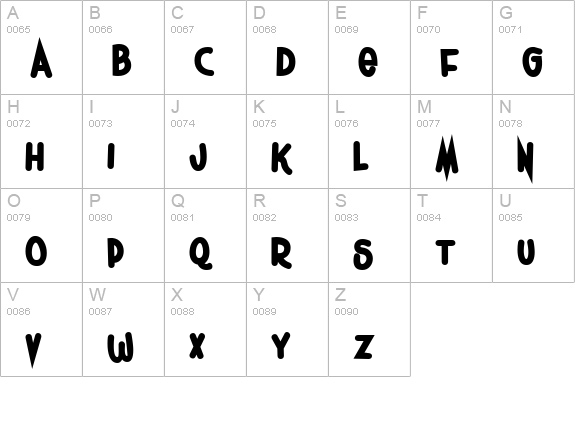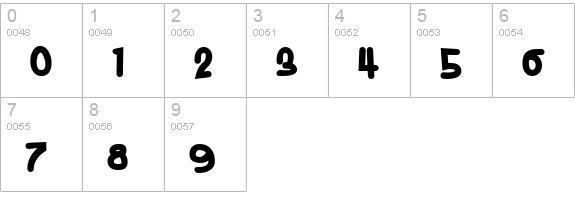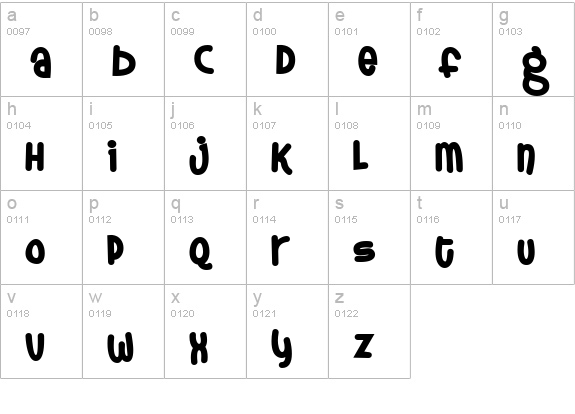
Thursdoo Font Details
Thursdoo font is a stunning display font that exudes elegance and sophistication. With its clean lines and modern design, this font is perfect for a wide range of creative projects, from branding and logos to invitations and social media graphics. Thursdoo font captivates with its timeless beauty, making a lasting impression on any design. What's even better is that Thursdoo font is completely free! Yes, you heard it right. This incredible font is freely available to download at FontsMarket.com, a reputable platform for high-quality fonts. Whether you're a professional designer or a hobbyist, this font is a must-have in your collection. With Thursdoo font, you can effortlessly elevate your designs to new heights. Its versatility allows you to play with different weights and styles, adding depth and dimension to your creations. The smooth curves and unique letterforms of Thursdoo font will give your designs a touch of sophistication and refinement. Whether you're working on a logo for a luxury brand, a wedding invitation, or a social media post, Thursdoo font will add a touch of elegance to your design. Its legibility and attention to detail make it a perfect choice for both print and digital projects. With Thursdoo font, you can truly make your designs stand out from the crowd. So why wait? Head over to FontsMarket.com and download Thursdoo font for free today. Don't miss out on this incredible opportunity to enhance your designs with this remarkable font. Get creative and let Thursdoo font be your secret weapon for captivating typography.